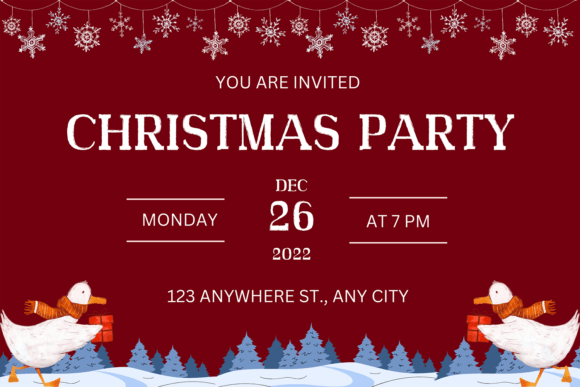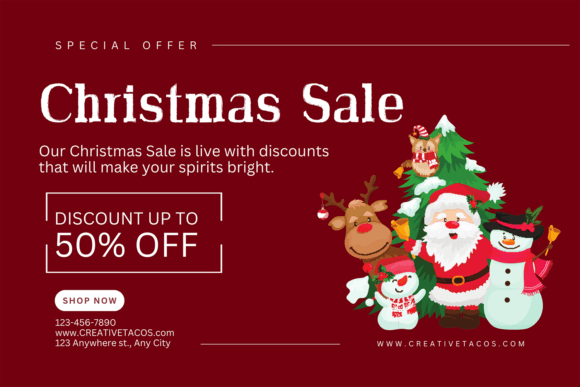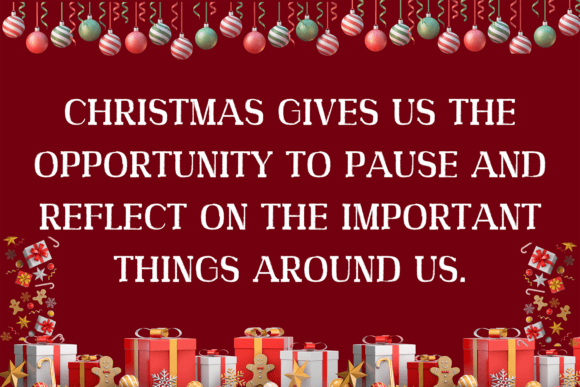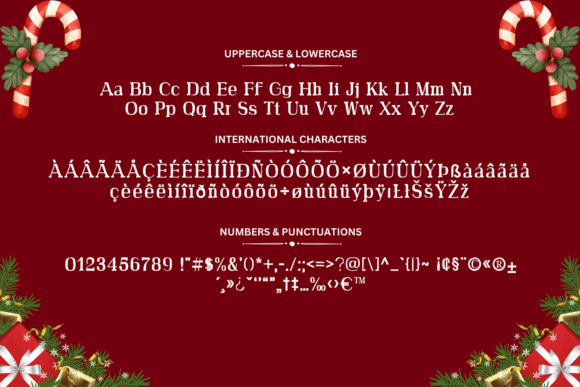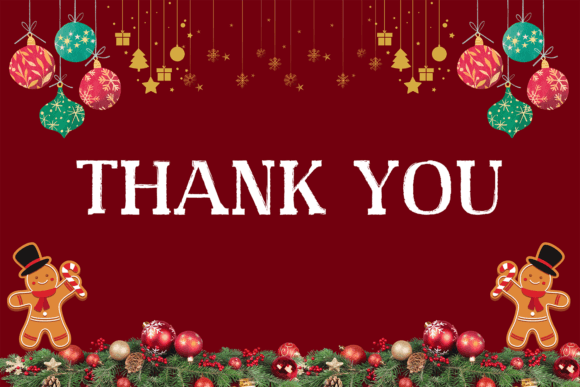
Introduction to Navette Font
Have you ever stumbled upon the perfect font for a design project, only to find yourself getting lost in the holiday spirit, wishing you had more excuses to use it throughout the year? That’s exactly what happened when I discovered the Navette Font. This delightful, hand-crafted font is more than just a design resource – it’s a key to unlocking your creativity and adding a touch of festive magic to any project.
As a designer, you’re always on the lookout for high-quality fonts that can elevate your work and make it stand out. The Navette Font is a free download that offers a transparent background, making it easy to use in a variety of creative projects, from holiday party invitations to social media posts. With its intricate details and flourishes, this font is sure to add a unique touch to your designs.
Key Features of Navette Font
- Features a transparent background, making it ideal for use on various backgrounds.
- Includes a range of characters, including uppercase and lowercase letters, numbers, and punctuation.
- Navette Font is designed with a modern and elegant style, suitable for a variety of creative projects.
Honest Review: Navette Font
One of the things that stood out to me about the Navette Font is its high quality. The transparent background makes it easy to layer and composite, which is perfect for creative projects that require a lot of visual elements.
- ✨ High quality design: The Navette Font is crisp and clean, making it perfect for any design project.
- ✨ Great for creative projects: The Navette Font is perfect for designers who need to create visually appealing and complex designs.
- ⚠️ Limited character set: While the Navette Font is great for most design projects, it may not be suitable for projects that require a large number of characters.
Overall, I’m really impressed with the Navette Font. It’s a great design resource that’s perfect for any creative project. While it may have a few limitations, it’s definitely worth checking out for any designer looking to add some high-quality fonts to their toolkit.
For the best results, use the Navette Font in conjunction with other high-quality design elements. Common use cases include branding, advertising, and creative projects. Remember to always check the font’s licensing terms and conditions to ensure proper usage.
Alternatives to Navette Font
Alejandro Hoefelt’s Montserrat
Montserrat is a high-quality, sans-serif font that offers a clean and modern design. It is perfect for creative projects that require a professional and sleek look. Montserrat can be downloaded for free, and it is often used in graphic design and digital media. When to use: Montserrat is ideal for headings and titles in designs that require a bold and modern touch. Compared to Navette Font, Montserrat has a more geometric and structured design.
Great Vibes is a beautiful, handwritten font that offers a unique and elegant design. It is perfect for creative projects that require a touch of sophistication and charm. Great Vibes can be downloaded for free, and it is often used in invitations, greeting cards, and other design elements that require a personal touch. When to use: Great Vibes is ideal for titles and headings in designs that require a whimsical and artistic touch. Compared to Navette Font, Great Vibes has a more cursive and expressive design.